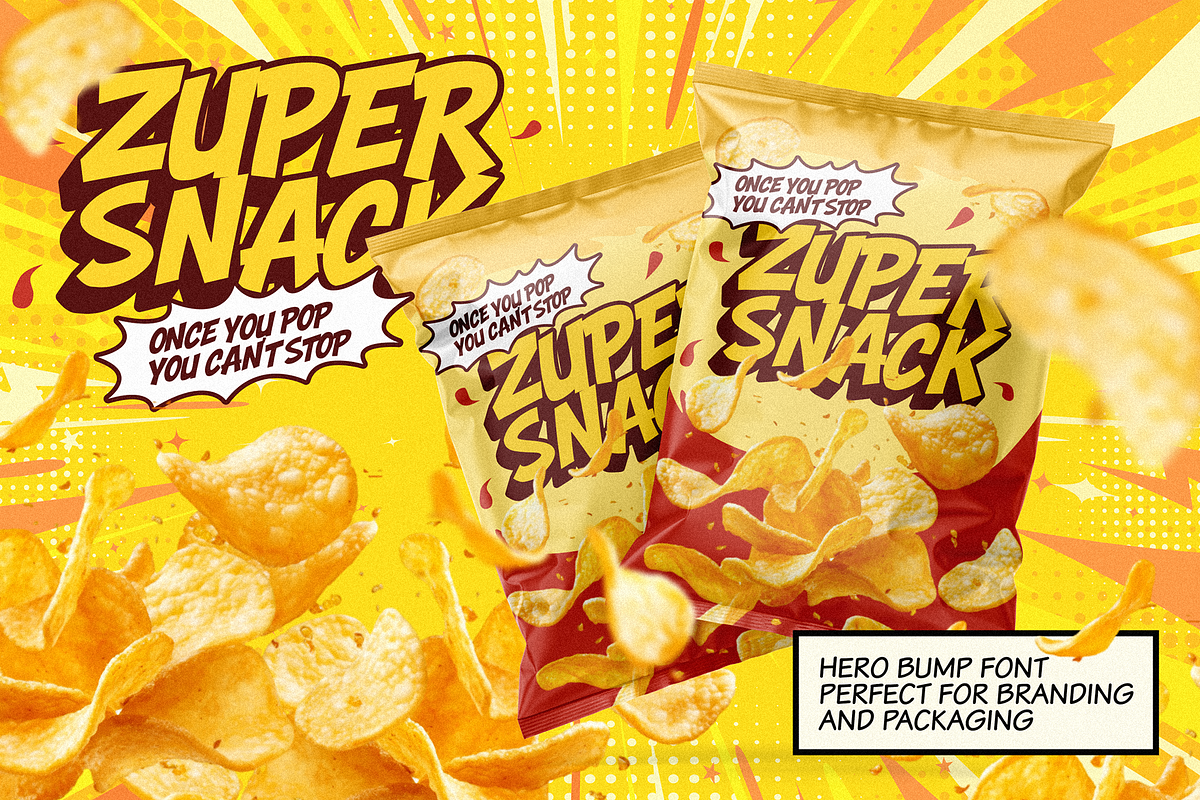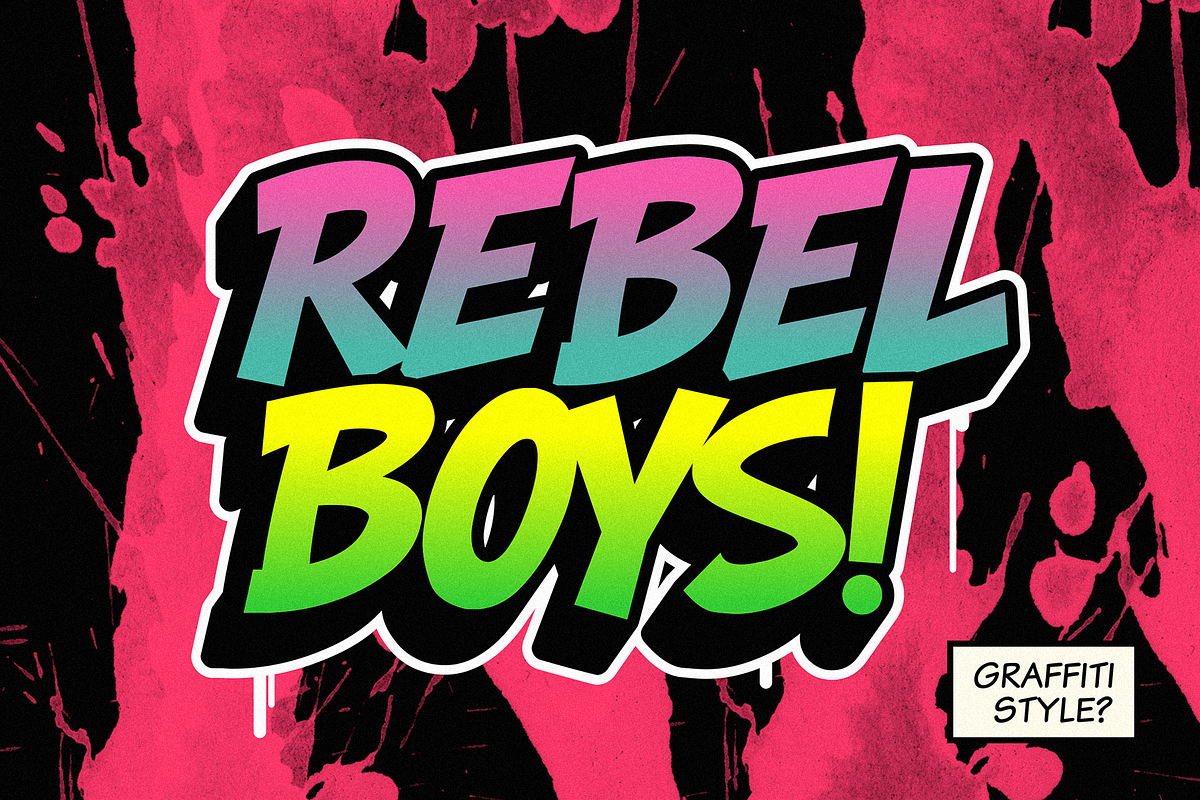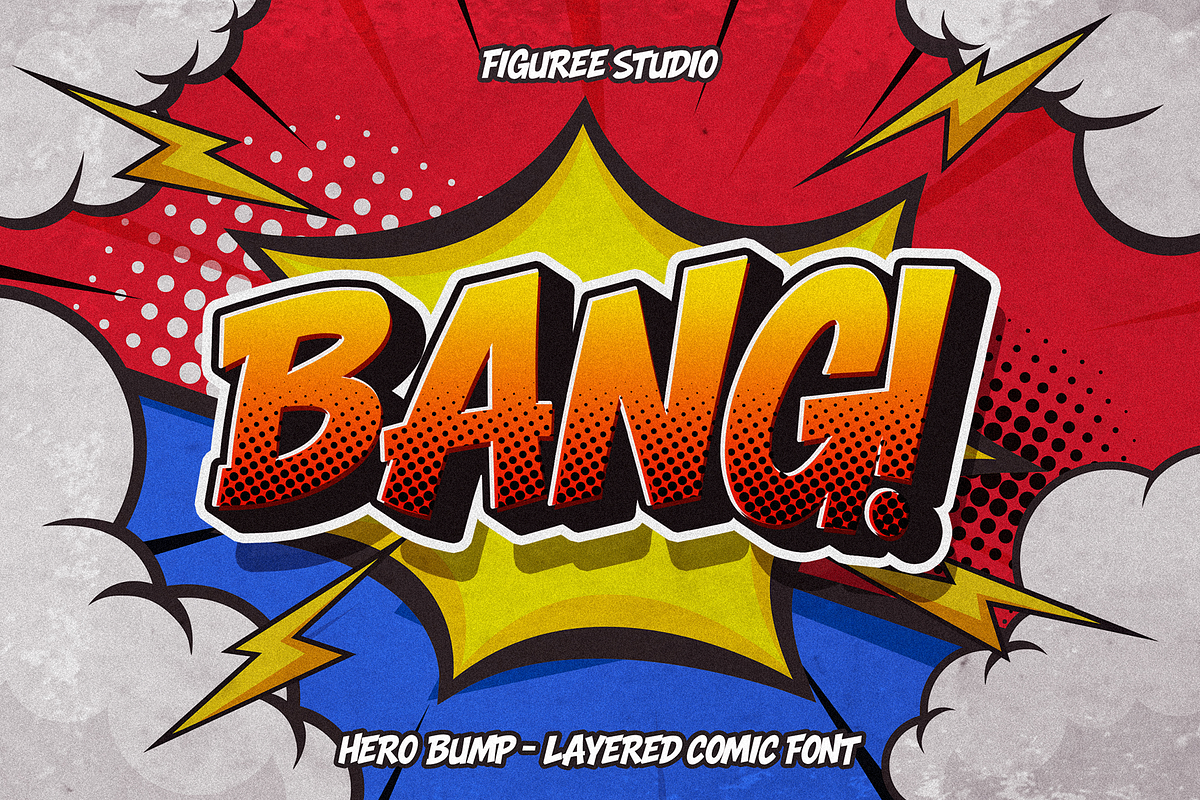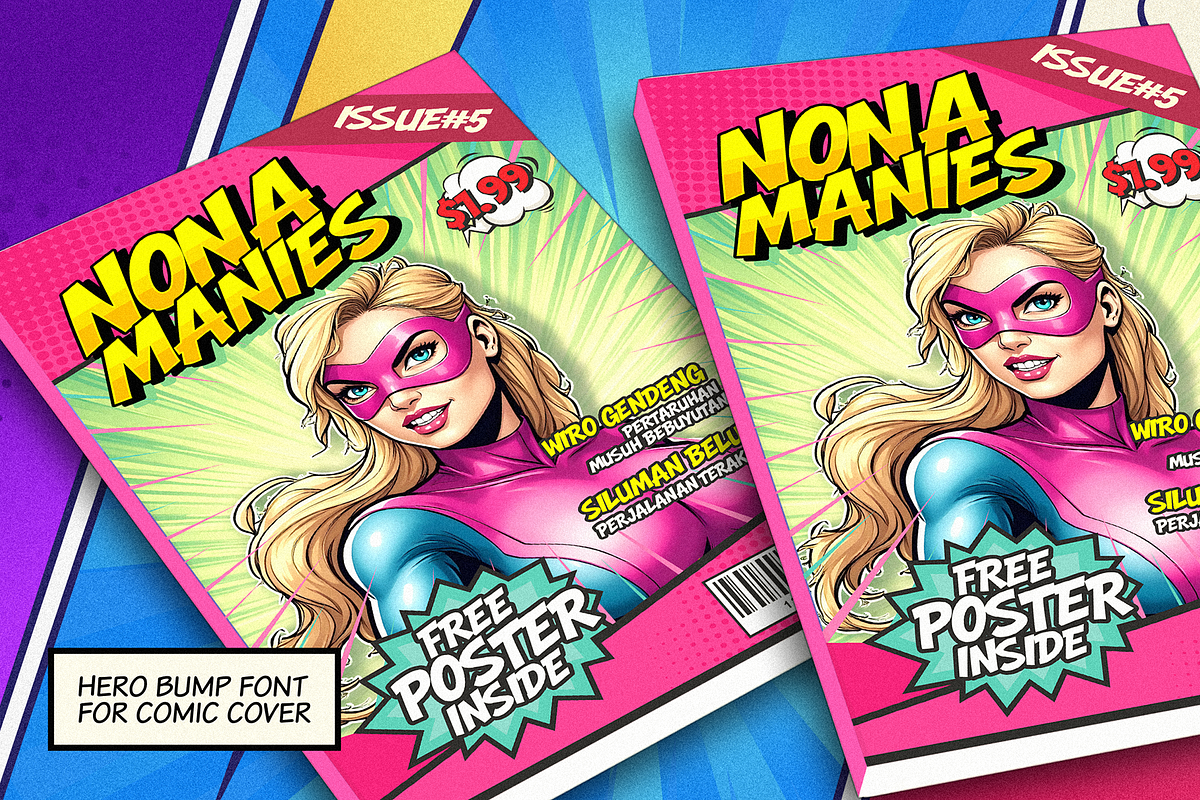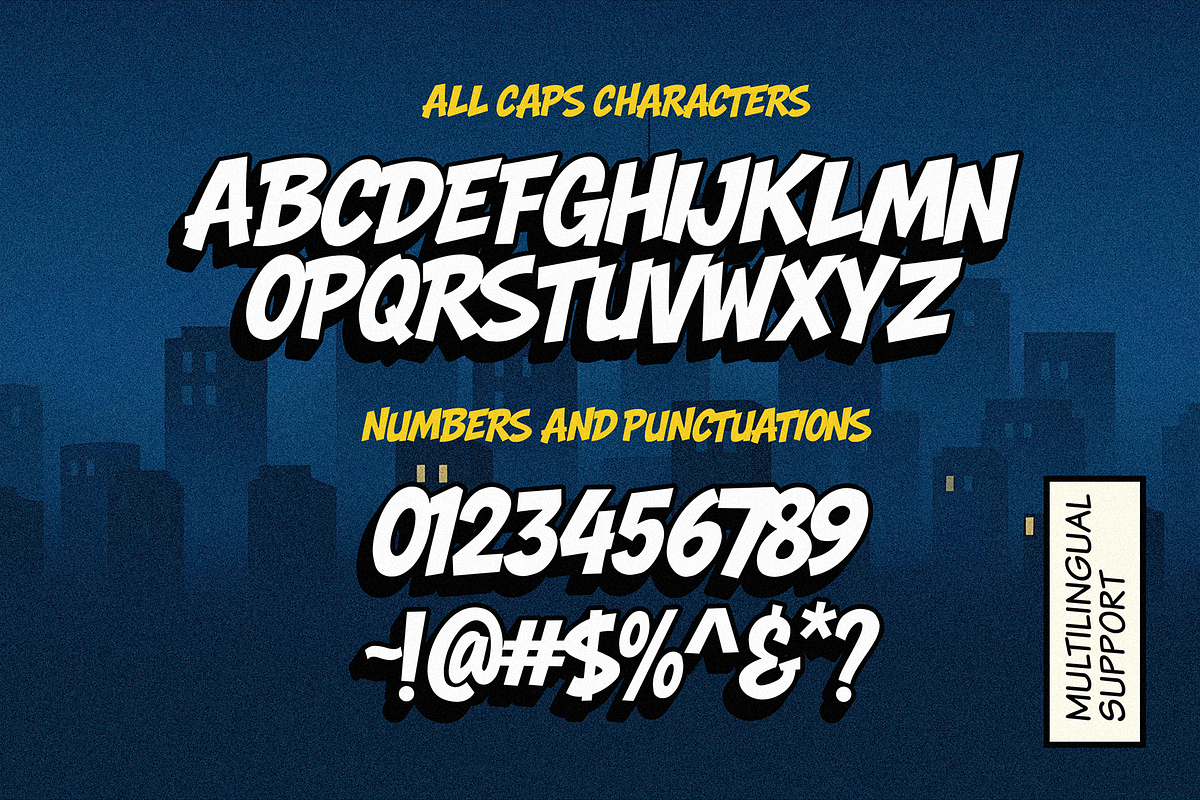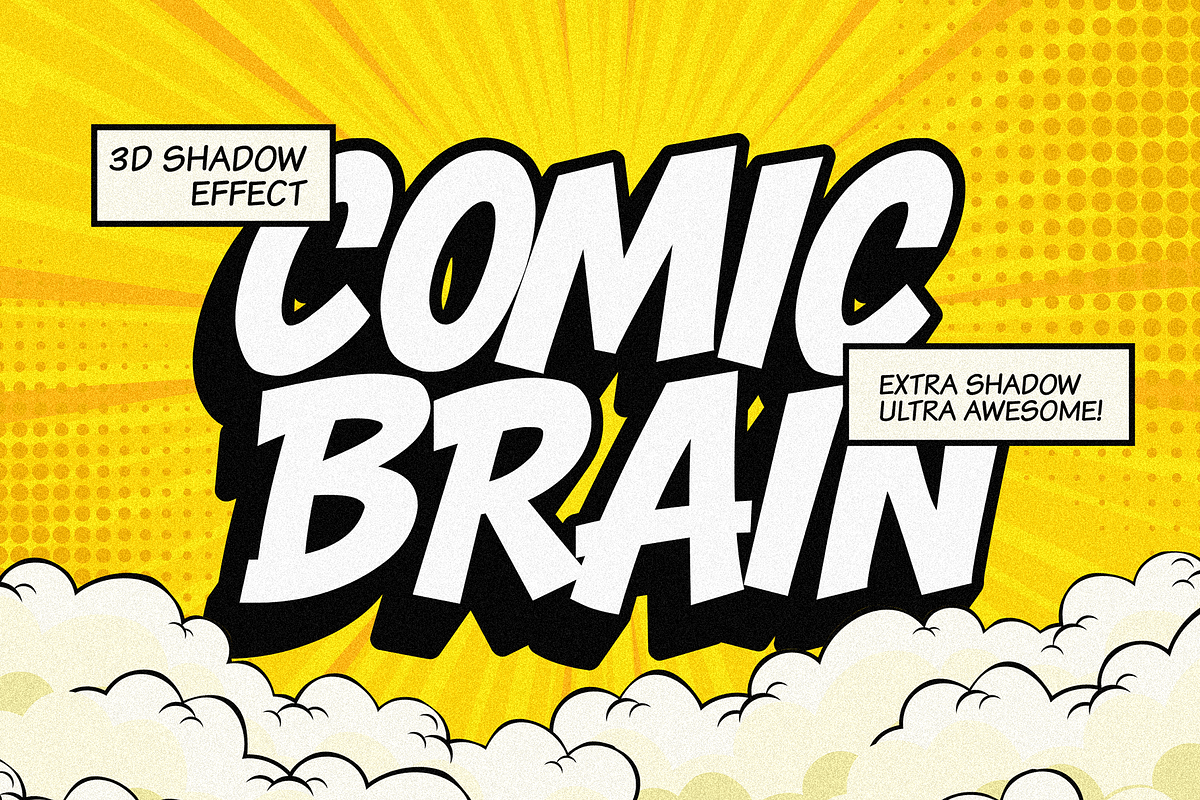
Hero Bump - Comic Display Font
Hero Bump is a bold, punchy comic display font that explodes with energy! Designed in all-caps, this typeface is the perfect companion for projects that need to shout, zap, and boom with fun. Whether you're designing for kids, games, cartoons, packaging, or comic books, Hero Bump brings an unstoppable character to every letter — now with a powerful Extrude style for that extra punch!
🔑 Key Features:
- All-Caps Character Set
- Bonus Extrude Style Included for bold, layered looks
- Multilingual Support (Western & Central Europe)
- Punctuation & Symbols Included
- Smooth Curves & Sharp Edges for Extra Impact
- Perfect for Posters, Stickers, Logos & Packaging
❤️ Why Designers Love Hero Bump: Designers love Hero Bump because it instantly adds personality and dimension to any creative project. The included extrude version opens up exciting layered design possibilities, giving your text a 3D, comic-book-style vibe. It’s bold but friendly, strong yet playful — making it versatile for both kids’ branding and dynamic headlines.